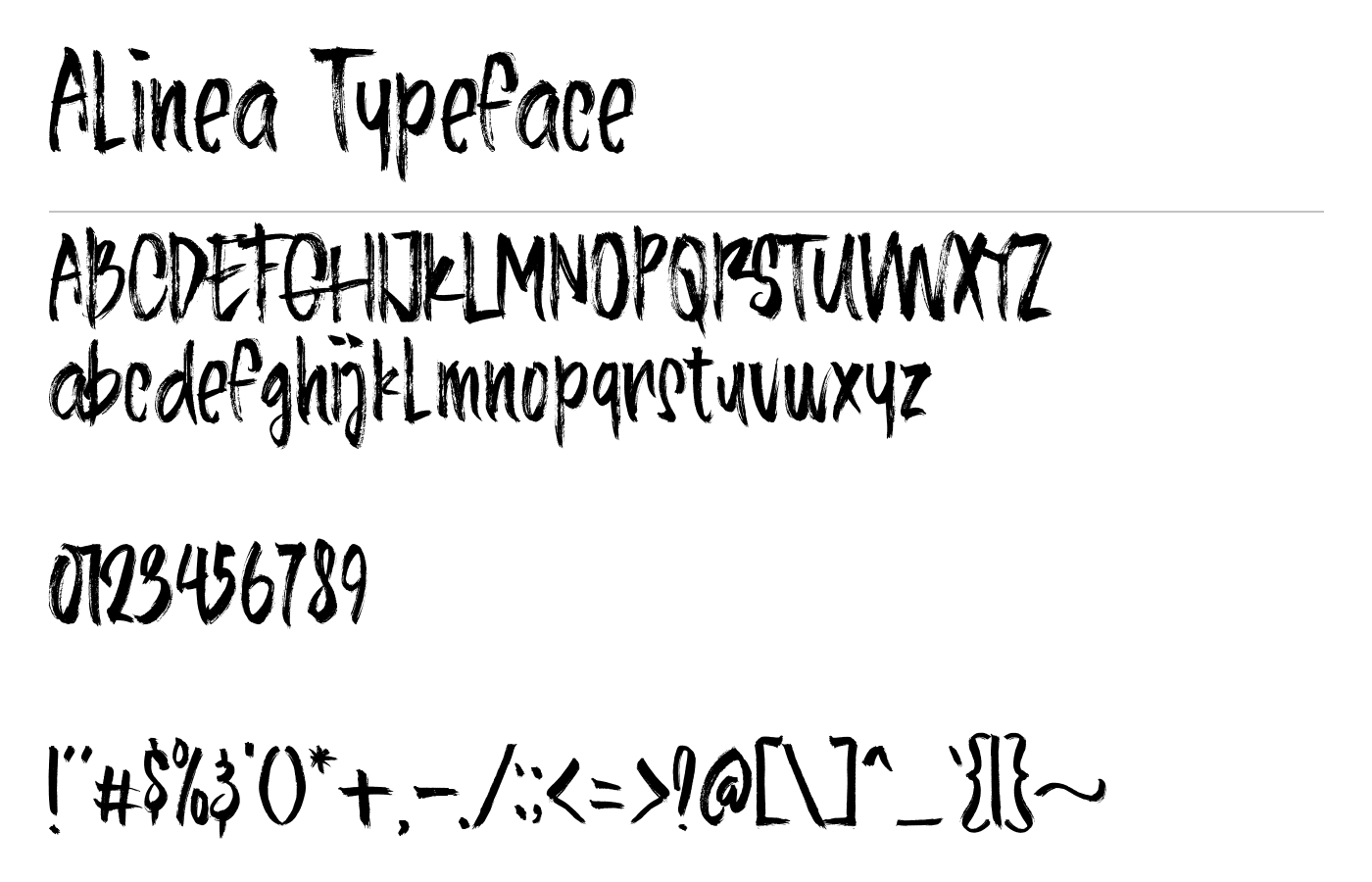
Alinea Typeface is a bold, hand-drawn sans serif font with an expressive, brushstroke texture that gives it a lively and artistic feel. Its tall, narrow letterforms and uneven edges create a playful, informal style perfect for creative projects, posters, and brands seeking a raw, authentic vibe. This font works well in headline or display use where personality and energy are desired.
Alinea Typeface Font
About Alinea Typeface Font